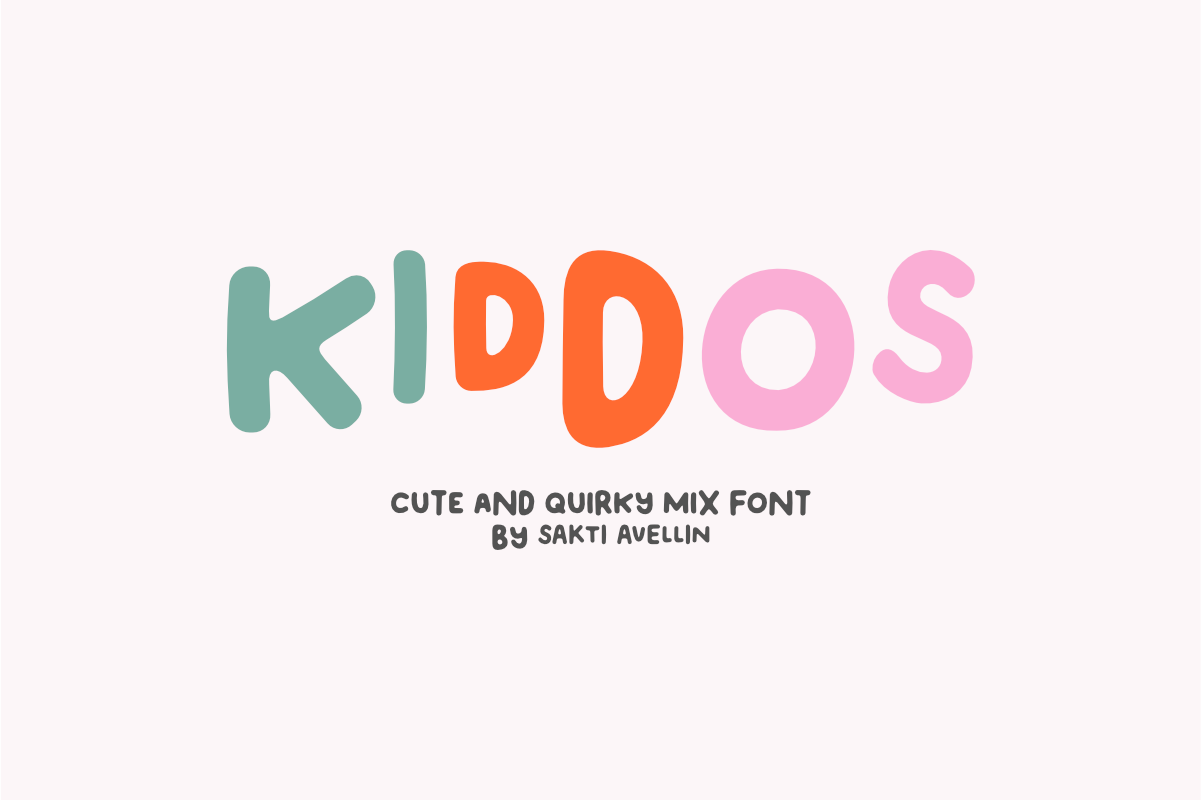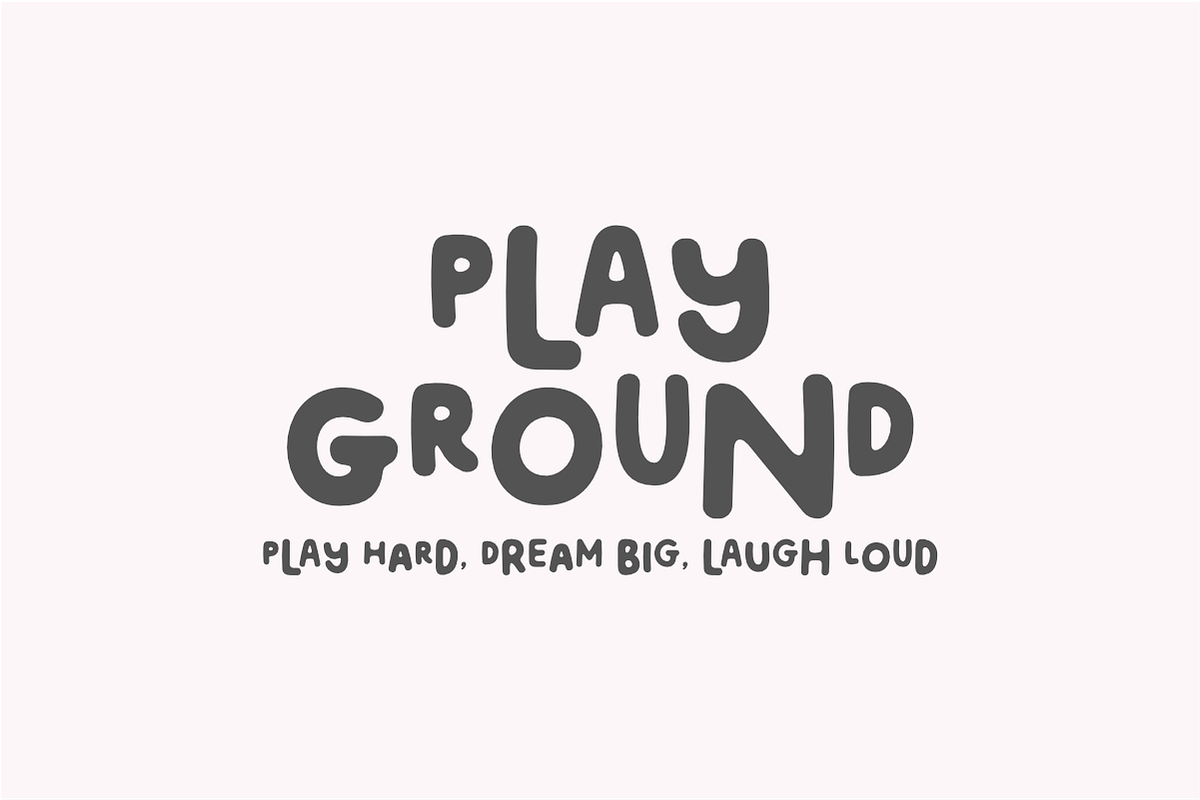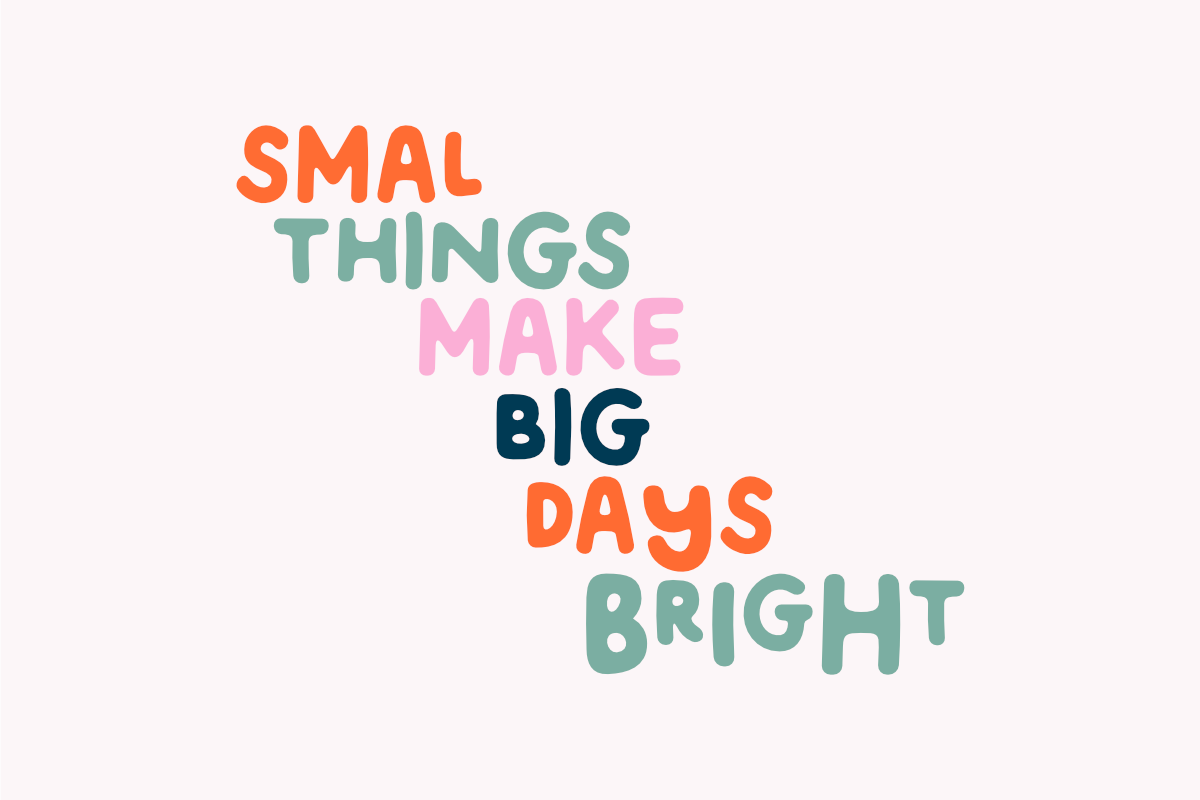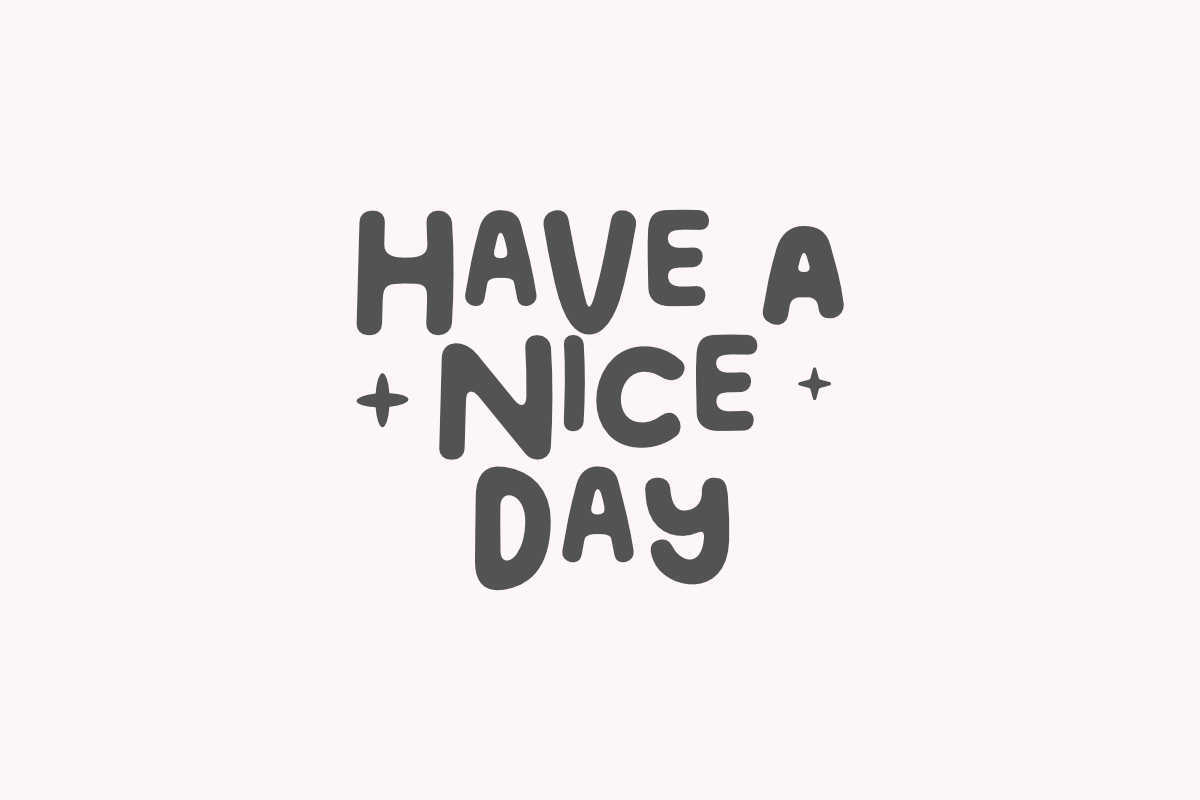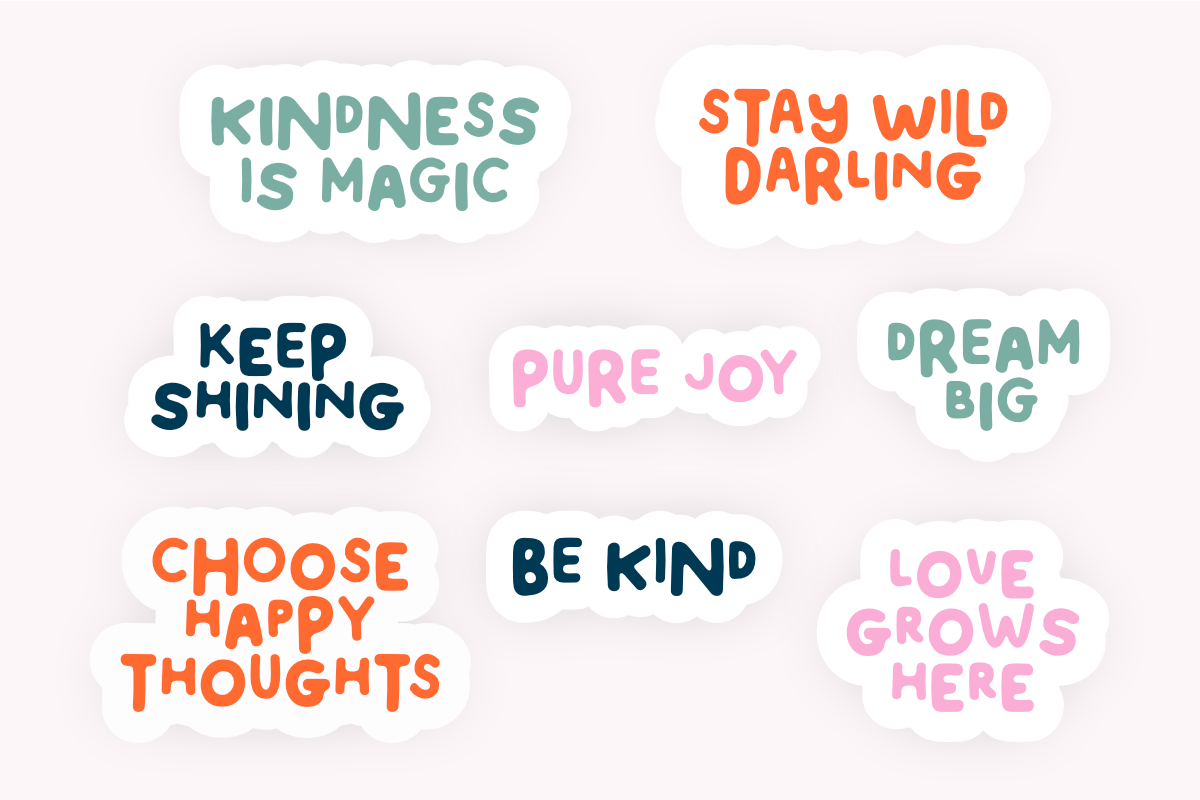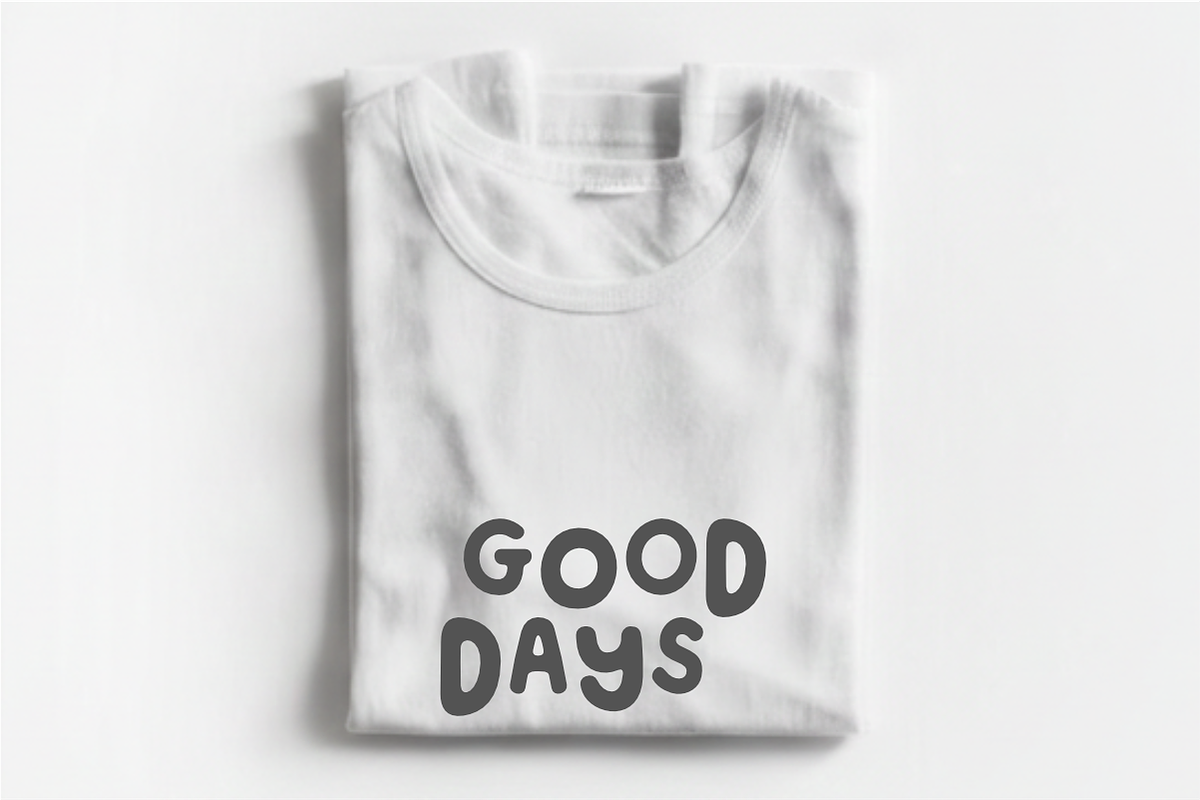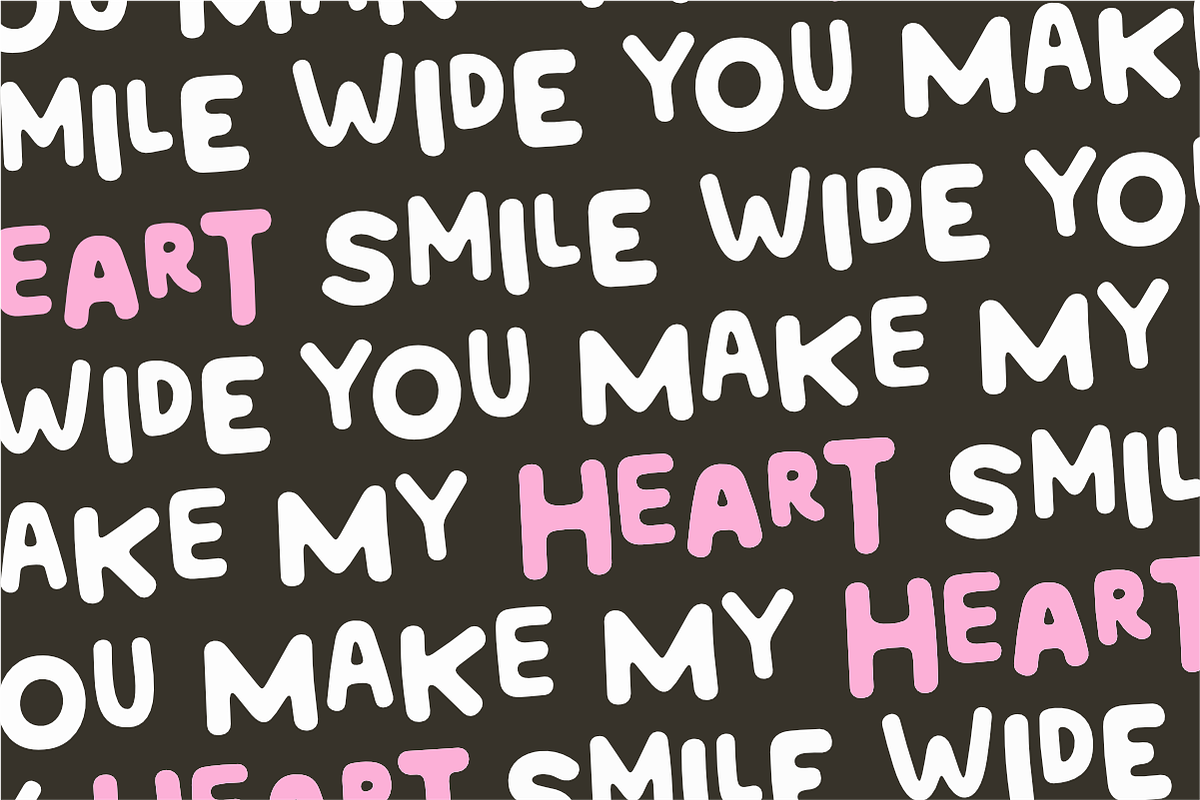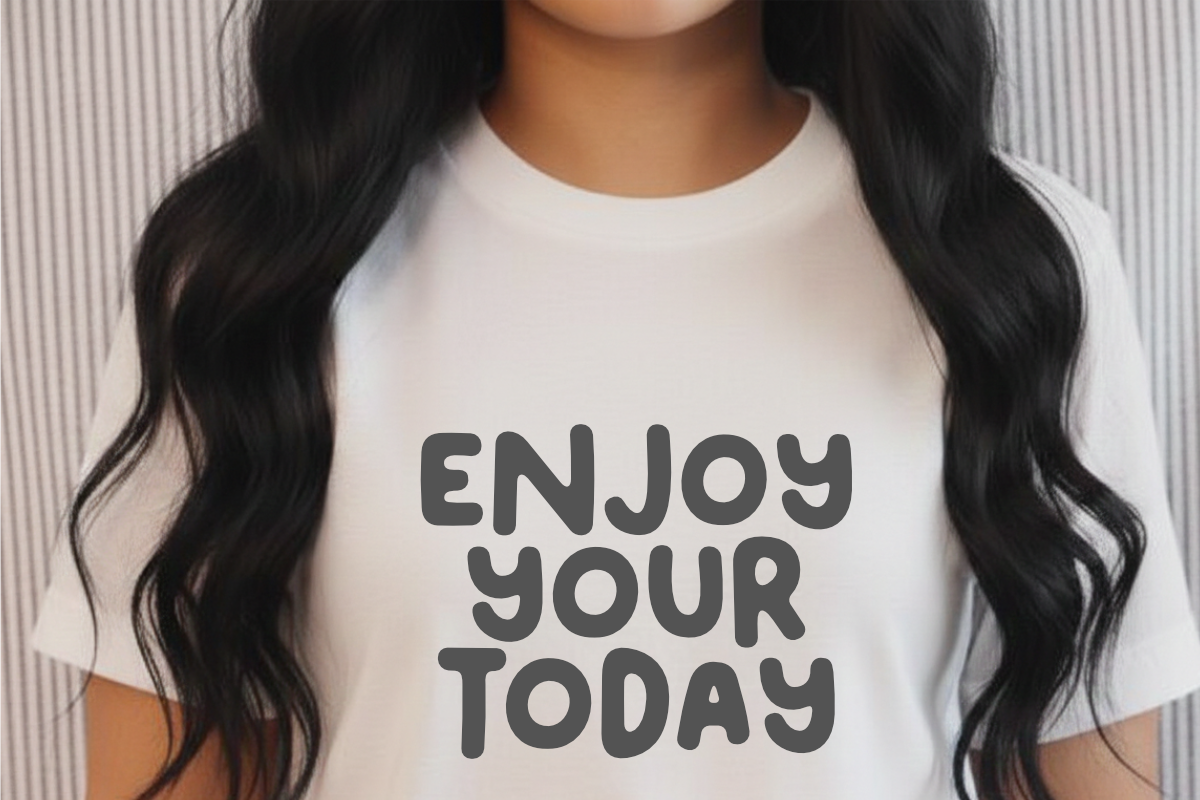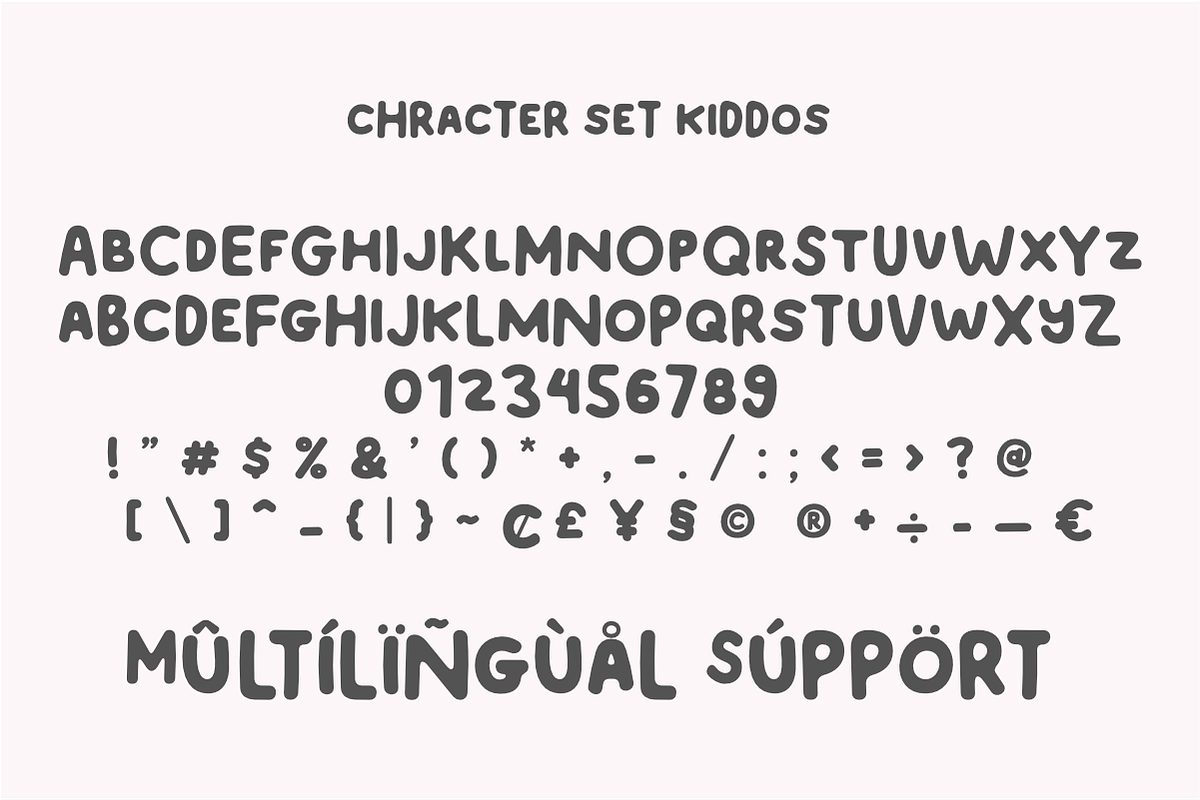
Kiddos - Cute Quirky Font
Kiddos is a vibrant and cute and quirky mix font designed to bring a sense of playfulness and energy to your creative work. This hand-drawn display typeface features bold, rounded letterforms with an irregular, bouncy rhythm, making it an ideal choice for kids' branding, nursery wall art, school posters, and cheerful social media graphics. Its organic and friendly aesthetic ensures your headlines stand out with a warm, handcrafted feel. Whether you are designing for birthday stickers, children's apparel, or whimsical book covers, Kiddos adds a lovely and creative spirit to every piece of work.